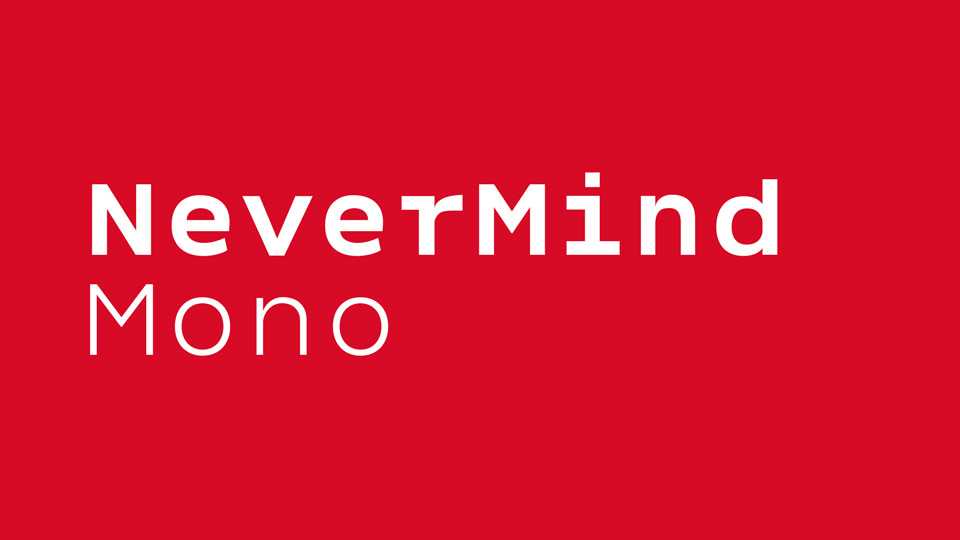
Download Nevermind Mono font, a monospaced sans serif typeface that seamlessly merges classic elegance with contemporary edge. Geometric and humanist, it can be used for all types of communication.
Designer: XMind Ltd.